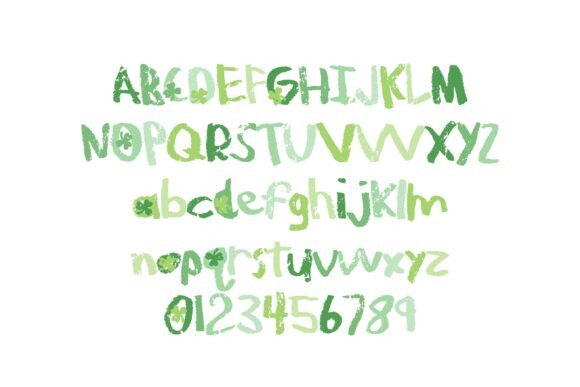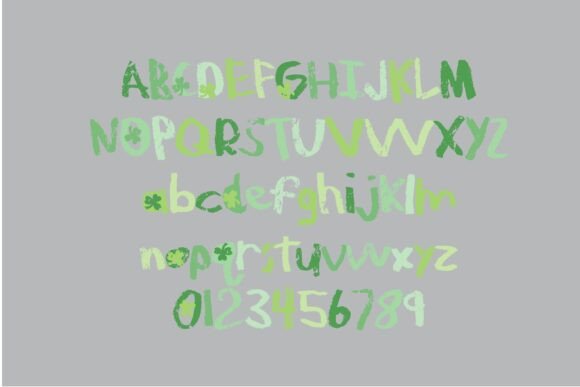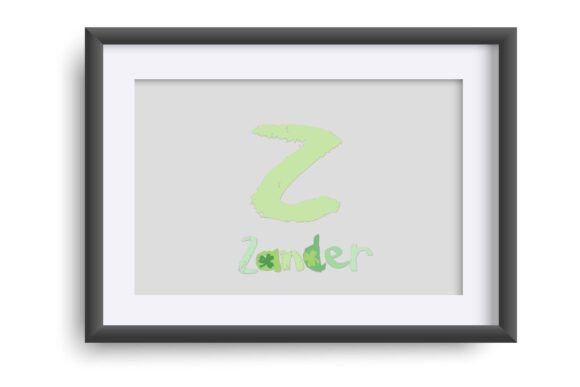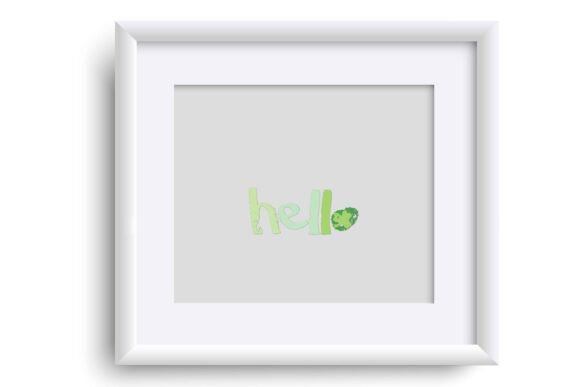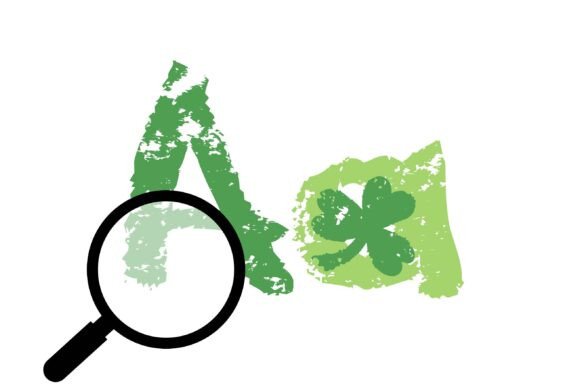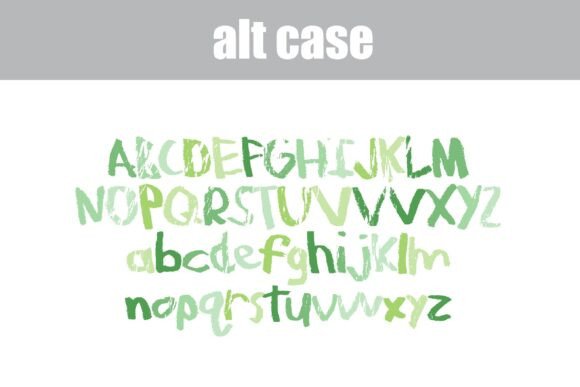
Unlock the Magic of Your Designs with Charming Chalk Font
Have you ever been stuck in a creative rut, staring at a blank page, trying to conjure up the perfect font to match your vision? I’ve been there too, and it’s frustrating when you can’t quite find the right tool to bring your ideas to life. That’s why I’m excited to introduce you to Charming Chalk Font, a full-color font that’s sure to add a touch of whimsy and charm to your designs.
Charming Chalk Font features a beautiful green chalk-like design that’s perfect for titles, displays, posters, and more. With its unique style and vibrant color, it’s no wonder why designers are falling in love with this font. But what really sets it apart is the alt version, which can be accessed through your system’s character map, offering a range of additional colors for each letter. Whether you’re a seasoned pro or just starting out, Charming Chalk Font is a valuable addition to any designer’s toolkit.
Charming Chalk Font Key Features
- Font Style: A distressed, hand-drawn font with a chalkboard feel.
- Character Set: Includes a wide range of characters, including uppercase and lowercase letters, numbers, and punctuation.
- Unique Characteristics: Features subtle texture and imperfections, giving it a unique, hand-crafted look.
Review of Charming Chalk Font
Overall, I’m quite fond of the Charming Chalk Font. Here are some aspects where it truly shines ✨:
- Unique aesthetic: The font’s distressed, hand-drawn look gives it a charming, whimsical feel that’s perfect for projects that need a touch of personality.
- Flexibility: Charming Chalk Font works well for a wide range of applications, from branding and marketing materials to digital products and social media graphics.
- Ease of use: The font is relatively easy to read, even at smaller sizes, making it a great choice for titles and headings.
However, there are some limitations to consider ⚠️:
- Legibility issues: While the font is easy to read at larger sizes, it can become somewhat difficult to decipher at very small sizes, potentially leading to readability problems.
- Lack of consistency: The font’s hand-drawn nature means that it can be inconsistent in terms of letter spacing and character width, which may affect its overall professionalism.
Despite these limitations, I think Charming Chalk Font is a solid choice for designers looking to add some personality to their projects. Just be sure to use it judiciously and balance it with more traditional fonts to avoid readability issues.
Tips for Getting the Most Out of Charming Chalk Font
Use Charming Chalk Font for titles, headings, and emphasis in your designs.
Combine Charming Chalk Font with other fonts for a unique and playful look.
Experiment with different font sizes and styles to add visual interest to your text.
Charming Chalk Font is perfect for:
Children’s party decorations and materials
Playful advertising and marketing campaigns
Alternatives to Charming Chalk Font for Designers
Lato is a clean and modern sans-serif font. It’s perfect for creating a professional and elegant look for your designs. Use it for headings, titles, and body text where you want a clear and readable font. Compared to Charming Chalk Font, Lato is more formal and lacks the playful, handwritten feel of Charming Chalk.
Playfair Display is an elegant and luxurious serif font. It’s ideal for creating a sophisticated and high-end look for your designs. Use it for titles, headings, and other display text where you want to add a touch of luxury and sophistication. Compared to Charming Chalk Font, Playfair Display is more formal and ornate, making it perfect for high-end branding and advertising.